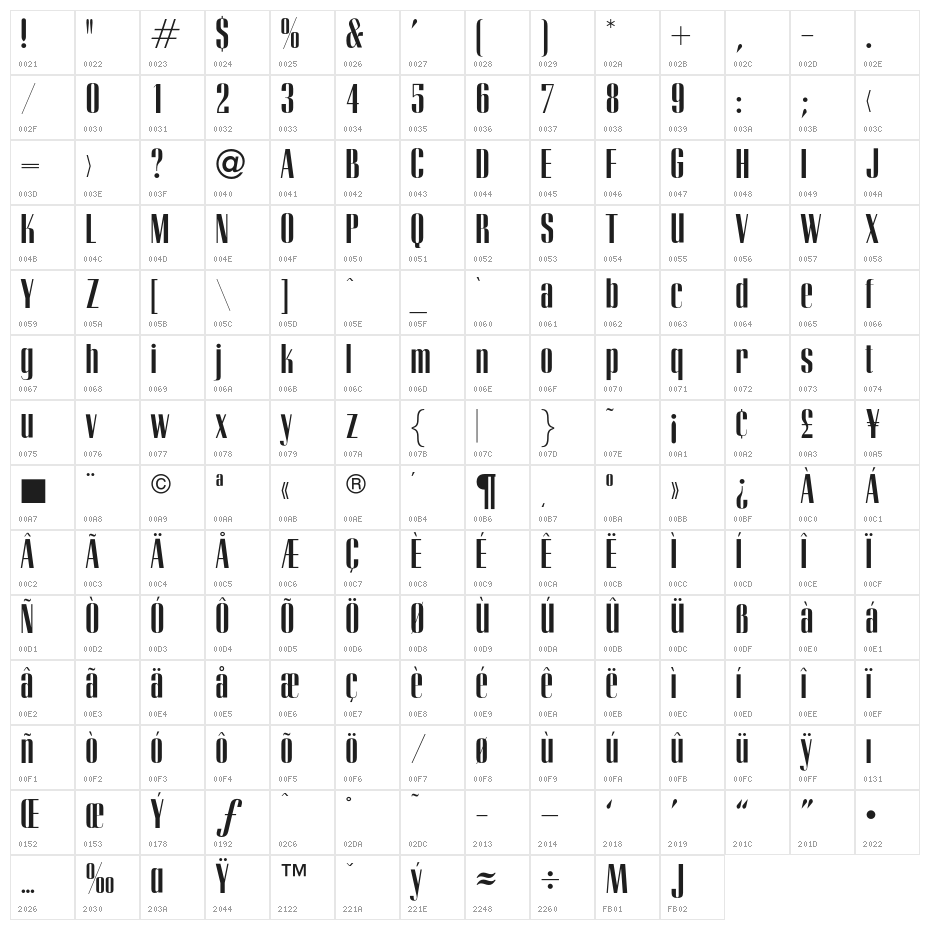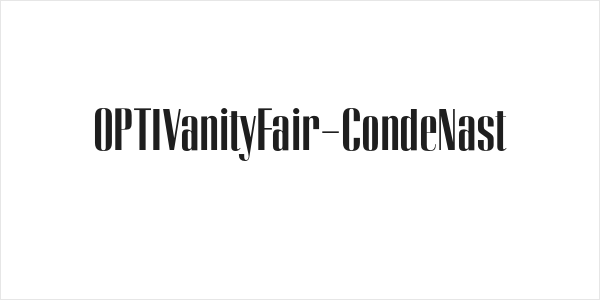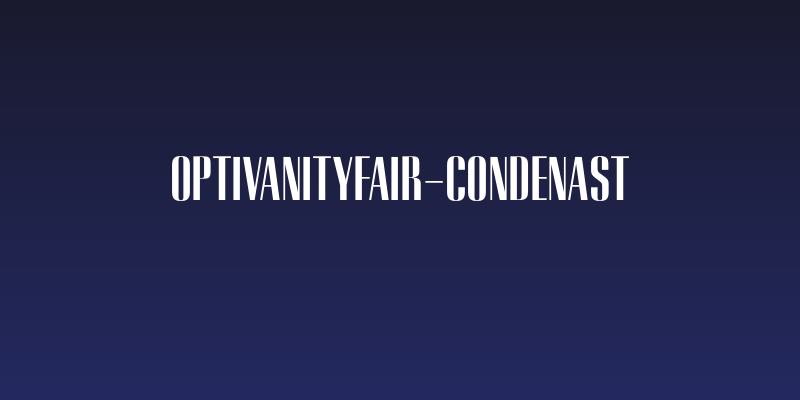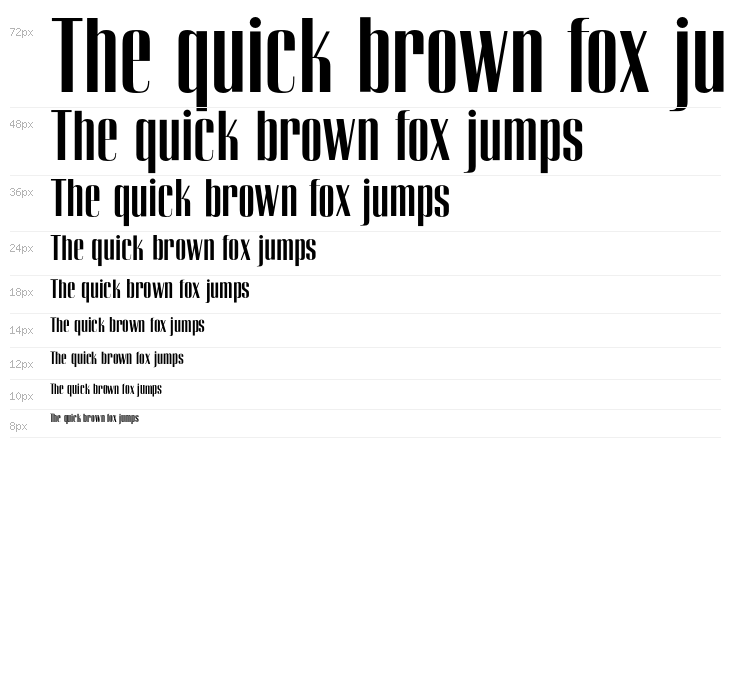
OPTIVanityFair-CondeNast Font
OPTIVanityFair-CondeNast Description
This font features a striking and elegant design with tall, narrow letterforms that exude sophistication and modernity. The uppercase letters are particularly elongated, giving a sense of grandeur and style. The lowercase letters maintain a consistent height, complementing the uppercase with a refined look. Numbers are bold and clear, ensuring readability. The special characters are designed with the same attention to detail, making them seamlessly integrate with the rest of the font. This typeface is suitable for high-end branding and editorial design, offering a luxurious and contemporary feel.
| Use Case | Headlines, Logos, Editorial design |
| Proposed Projects | Perfect for luxury branding, fashion magazines, high-end product packaging, and editorial layouts. |